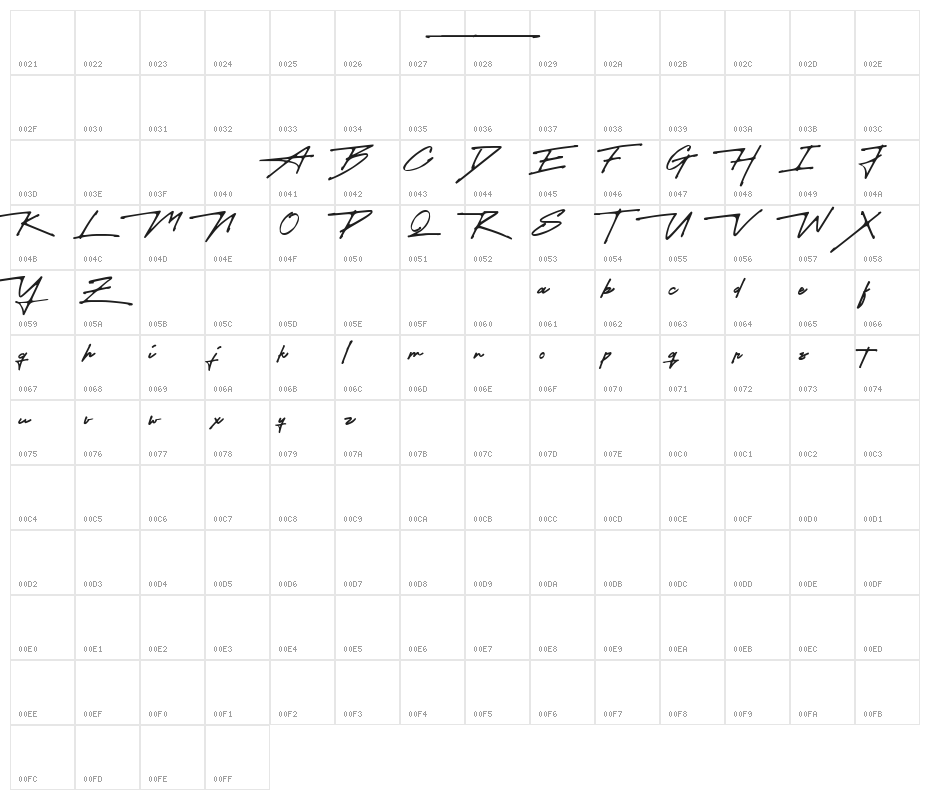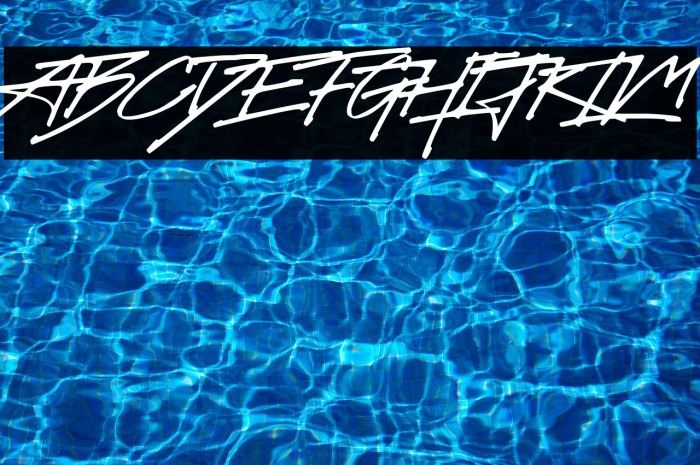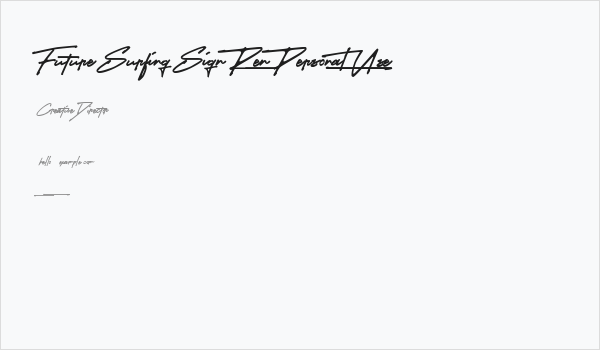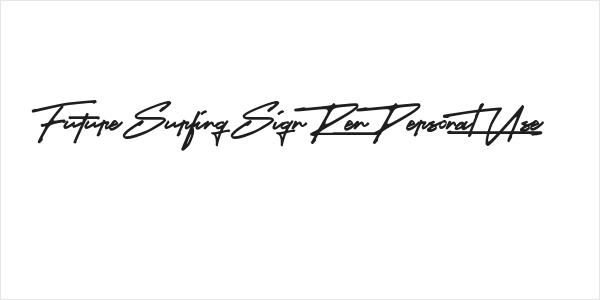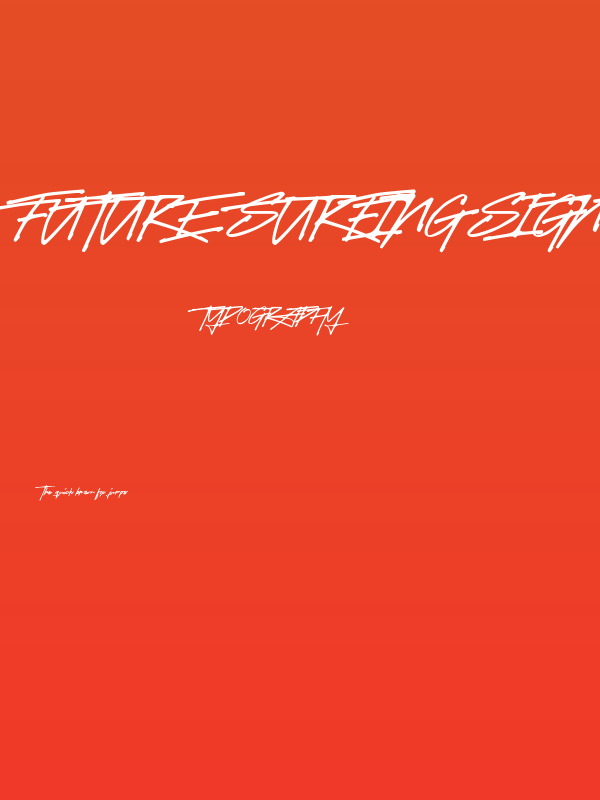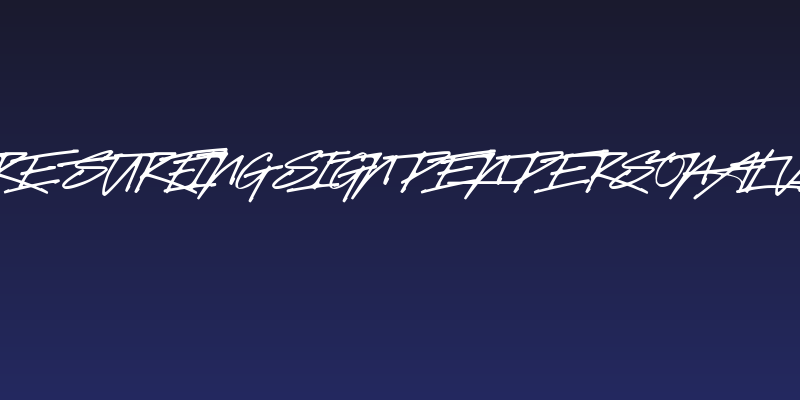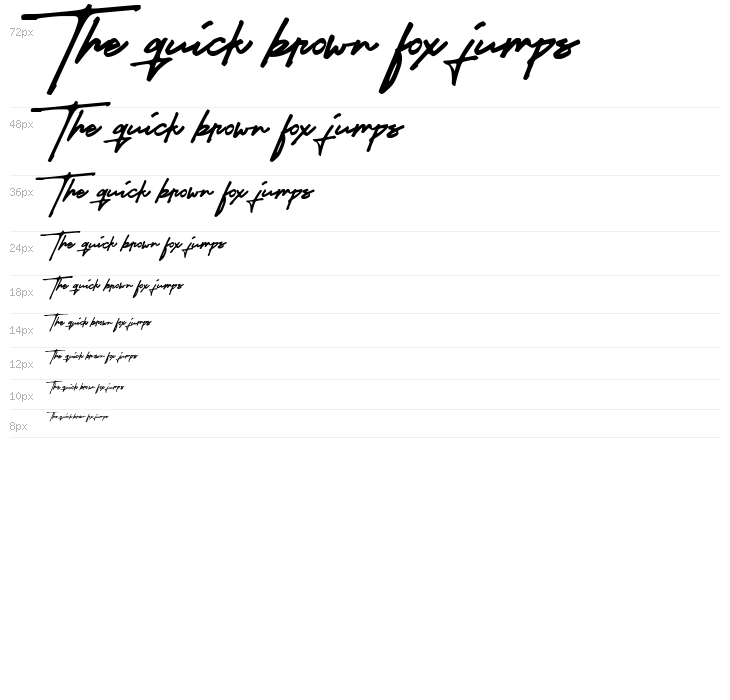
Future Surfing Sign Pen (Personal Use) Font
Future Surfing Sign Pen (Personal Use) Description
A dynamic and energetic handwritten script font with a casual, flowing style.
| Use Case | Logos, creative headlines. |
| Proposed Projects | Logos, posters, creative projects. |